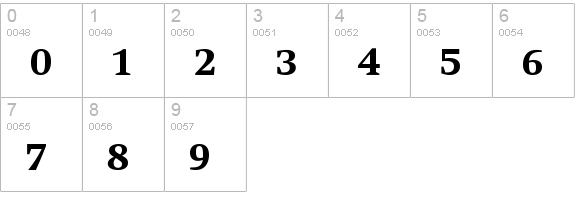
SwiftEF-ExtraBold is an extra-heavy, attention-grabbing variant in the SwiftEF typeface family \xE2\x80\x94 well suited to high-impact headlines, posters, and bold branding.
SwiftEF-ExtraBold is a striking and powerful typeface that exudes confidence and modernity. With its bold design and clean lines, this font commands attention and makes a strong visual statement. Perfect for headlines, posters, and other design projects that require a touch of boldness and impact. Best of all, SwiftEF-ExtraBold is available for free download at FontsMarket.com. So, whether you're a graphic designer looking for a standout font for your next project or simply someone who appreciates quality typography, don't miss out on the opportunity to add this versatile and eye-catching typeface to your collection. Download SwiftEF-ExtraBold today and take your designs to the next level!